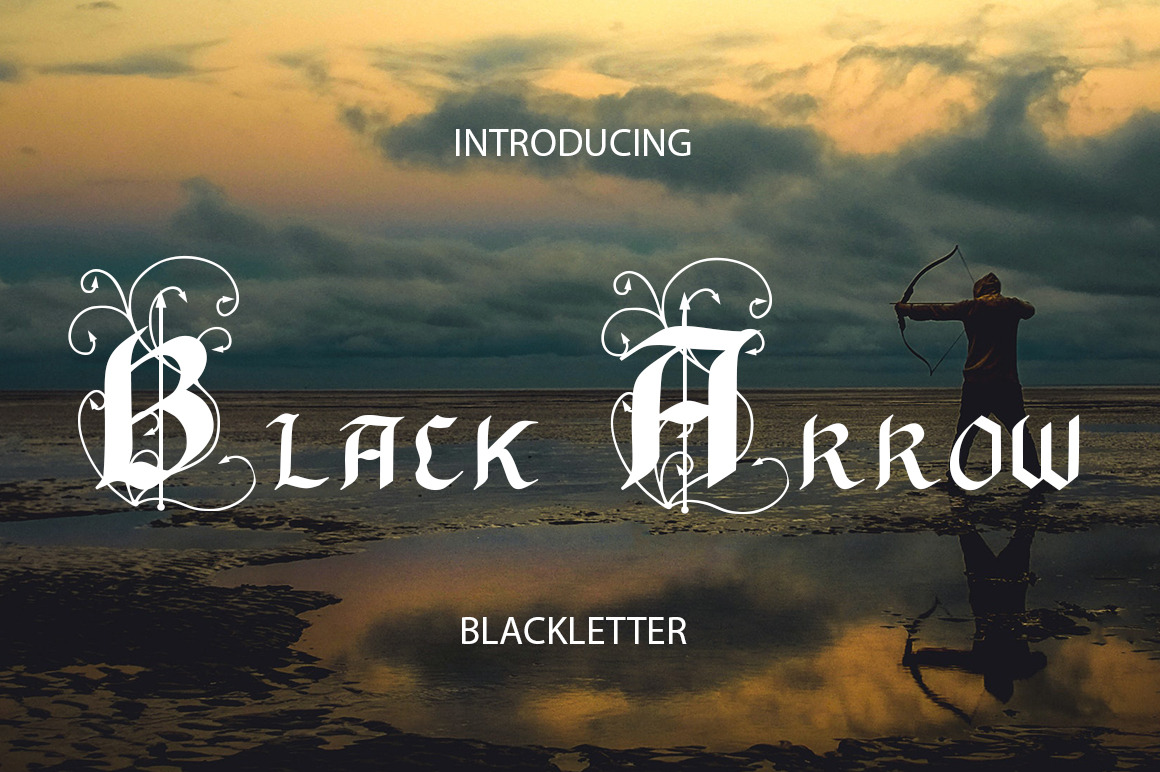
Black Arrow blackletter font
Black Arrow blackletter font with simple, minimalistic, retro and vintage feel. Includes a full set of capital and lowercase letters.
Typefaceis suitable font for many creative products & designs.